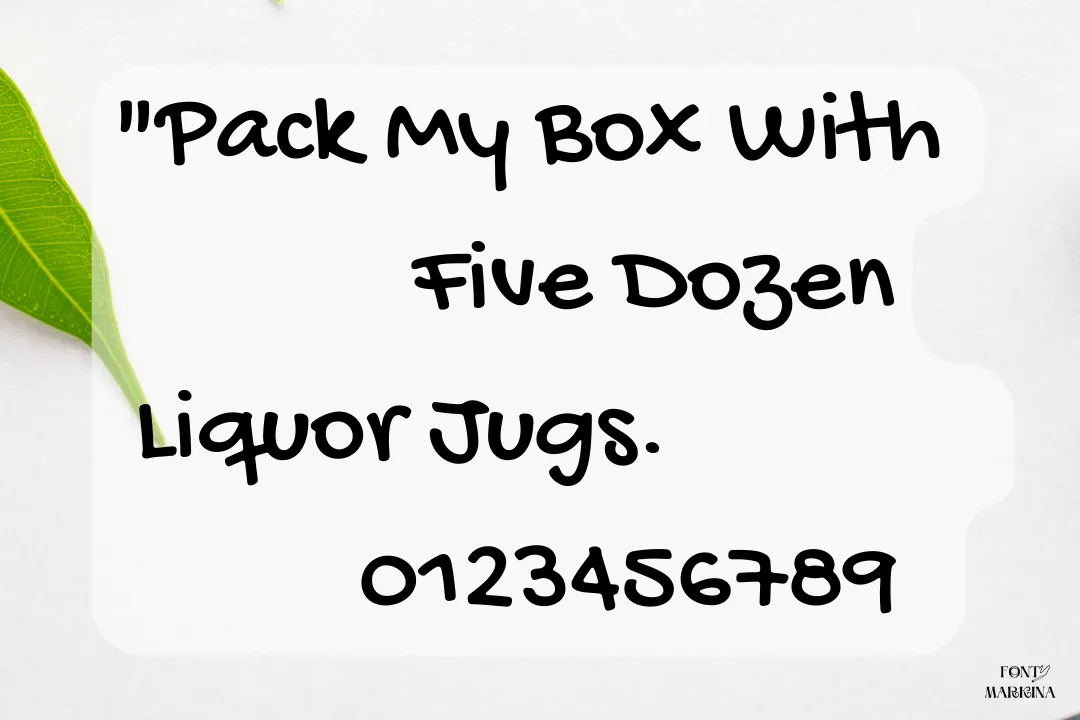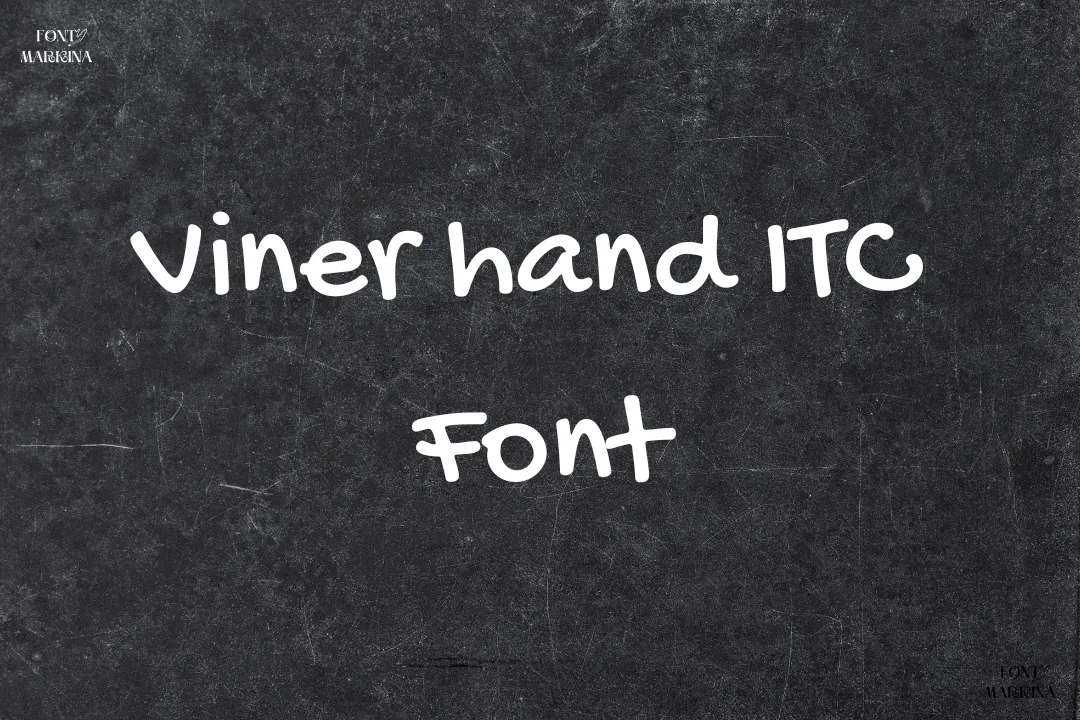
The Viner Hand ITC Font is an informal script face texture that was invented by a British developer known as the name of John Viner. this font worked for a company that created posters for the Gaumont and Odeon theatre circuits in the late 1940s, at which time he acquired the skill of brush writing.
Making appealing projects is simple when you mix the adelliya script font and the Viner Hand Texture. It works well for copy-and-paste operations and is appropriate for Adobe Photoshop and CSS. The font supports numerous languages including Latin and Cyrillic and English.
Uses of Viner Hand ITC Font
Due to its script texture family, you may utilize the Viner hand ITC Font for multiple types of projects. It is suitable for making social media posts, banners, logo designs, printings, and much more.
Designs in upper case are also permitted for more limited characters. On your headlines, logos, and text content, use start and stop shapes, ligatures, and swash variants. You can easily utilize this font with sanskrit font. You can get it in beautifully handwritten text, also perfect for creating social media posts, advertisements, and many more.
Viner Hand ITC Font View
What type of font is Viner Hand ITC?
The Viner hand ITC Font is basically an informal script face texture that was invented by a British developer known as the name of John Viner.
Where can I utilize the Viner Hand ITC?